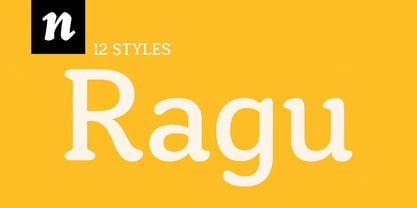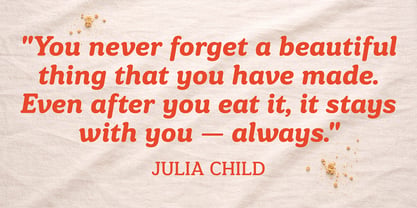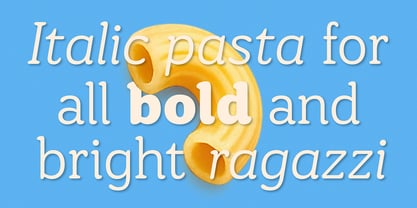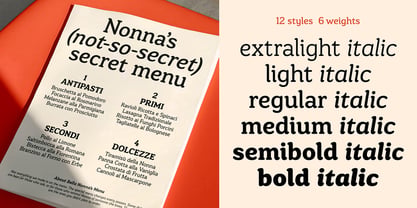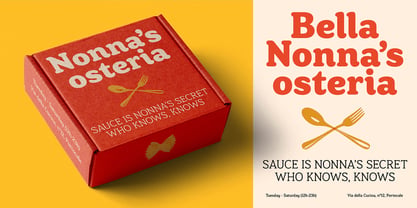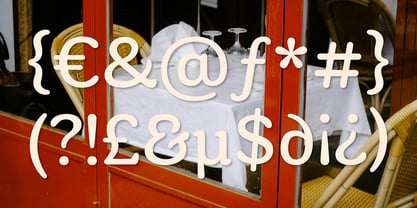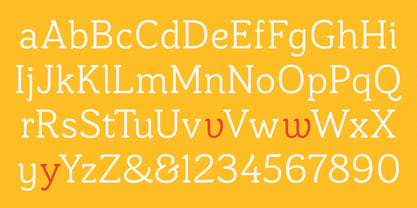
Ragu is a warm, flavorful display typeface built for branding and packaging, especially where a friendly voice needs to stay crisp and readable across real-world conditions. Its soft, rounded construction and generous curves bring an approachable, handmade warmth, while the confident weight and sturdy silhouettes give it the kind of presence that holds up on shelf, on labels, and in signage. Clear letterforms, open counters, and carefully controlled spacing keep Ragu legible at smaller sizes, making it equally at home in wordmarks, headlines, short promotional copy, and functional text like ingredients lists. The family includes 6 Roman weights paired with 6 matching true italics, giving designers a wide tonal range from gentle and inviting to bold and assertive without losing the underlying softness. Distinctive details in terminals and curves add character and craft while remaining disciplined enough to support consistent brand systems. It includes Latin Extended and Vietnamese.
Designers: Marcus Sterz, Joana Correia
Foundry: Nova Type Foundry
Ragu